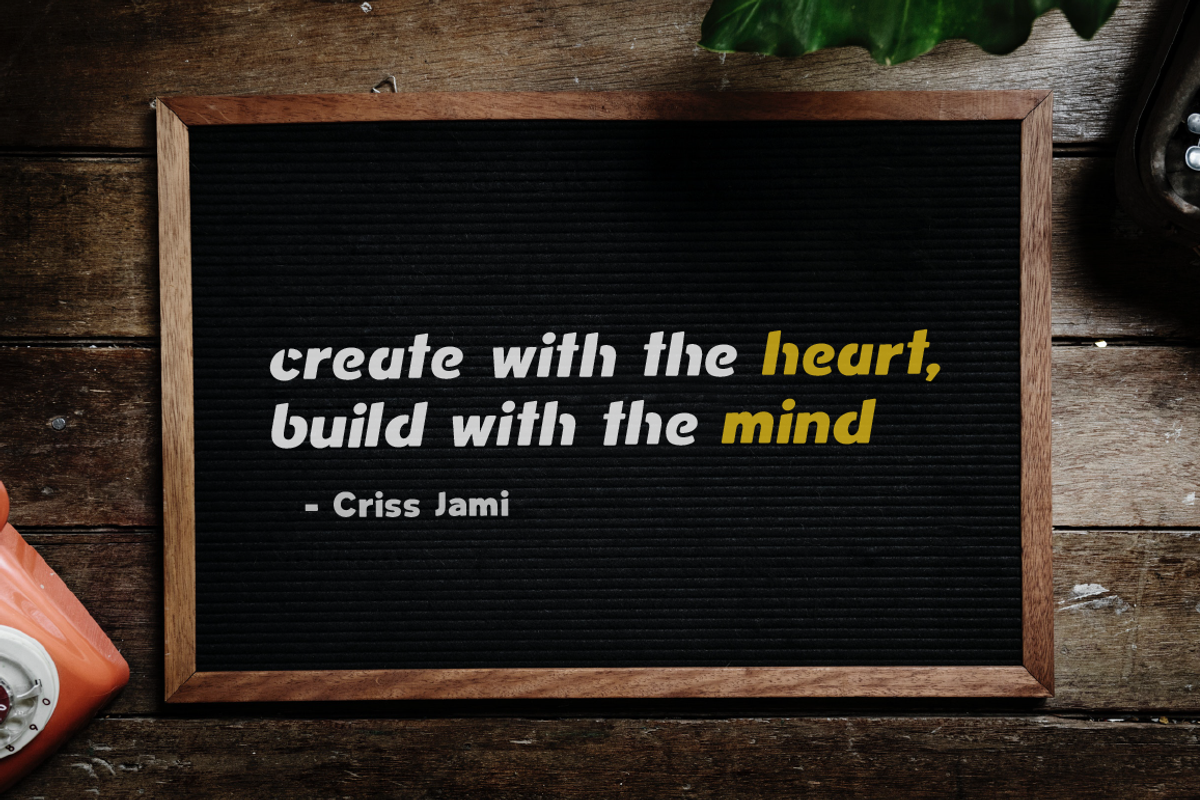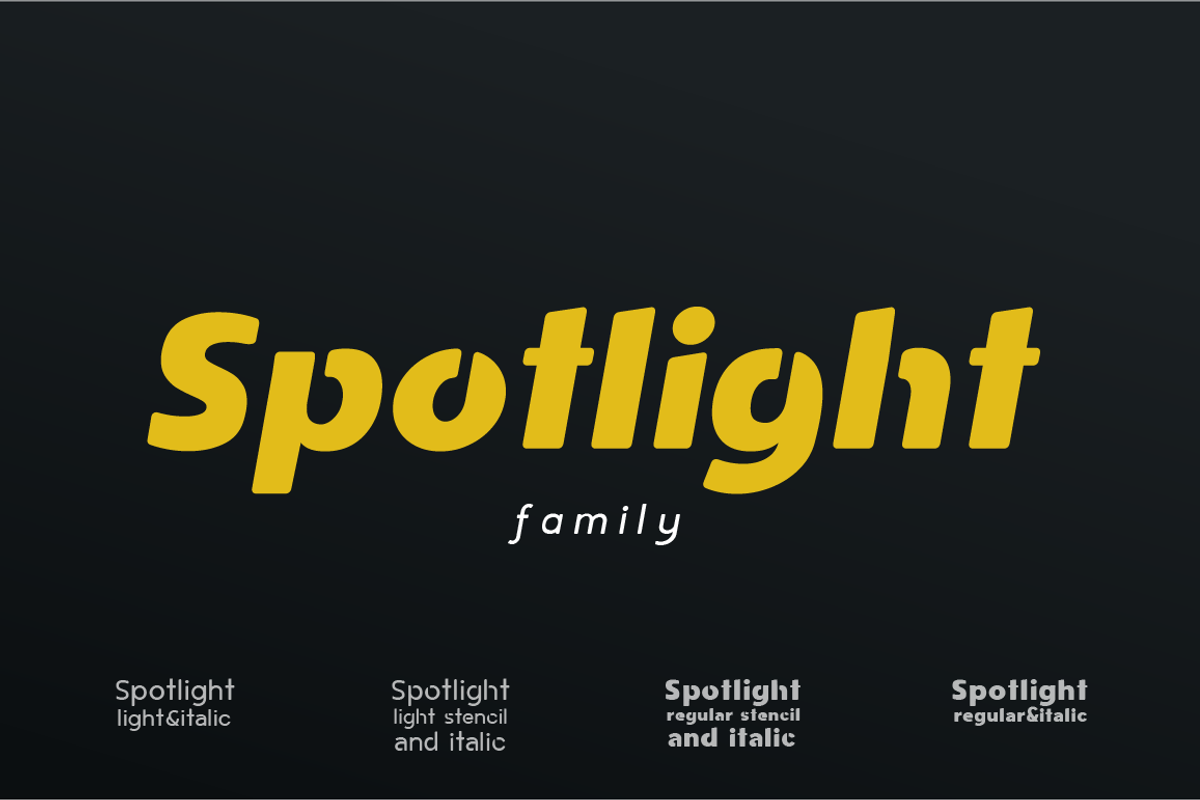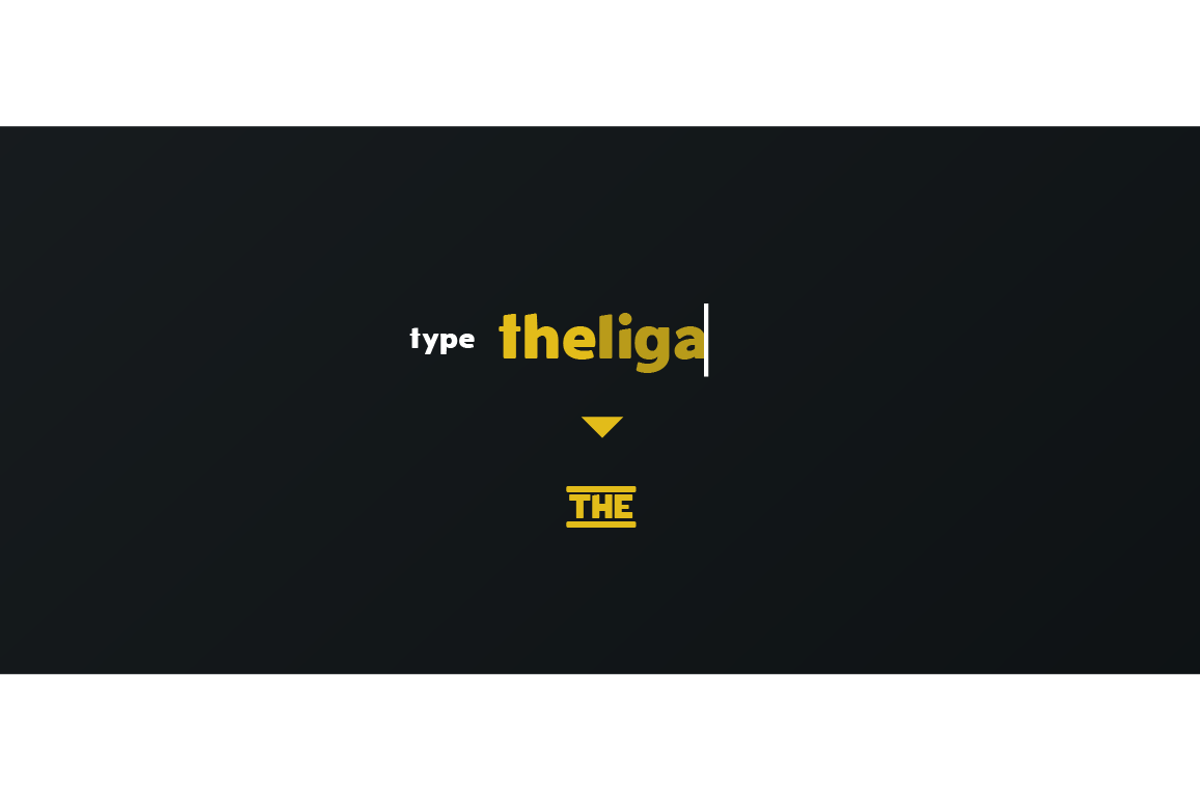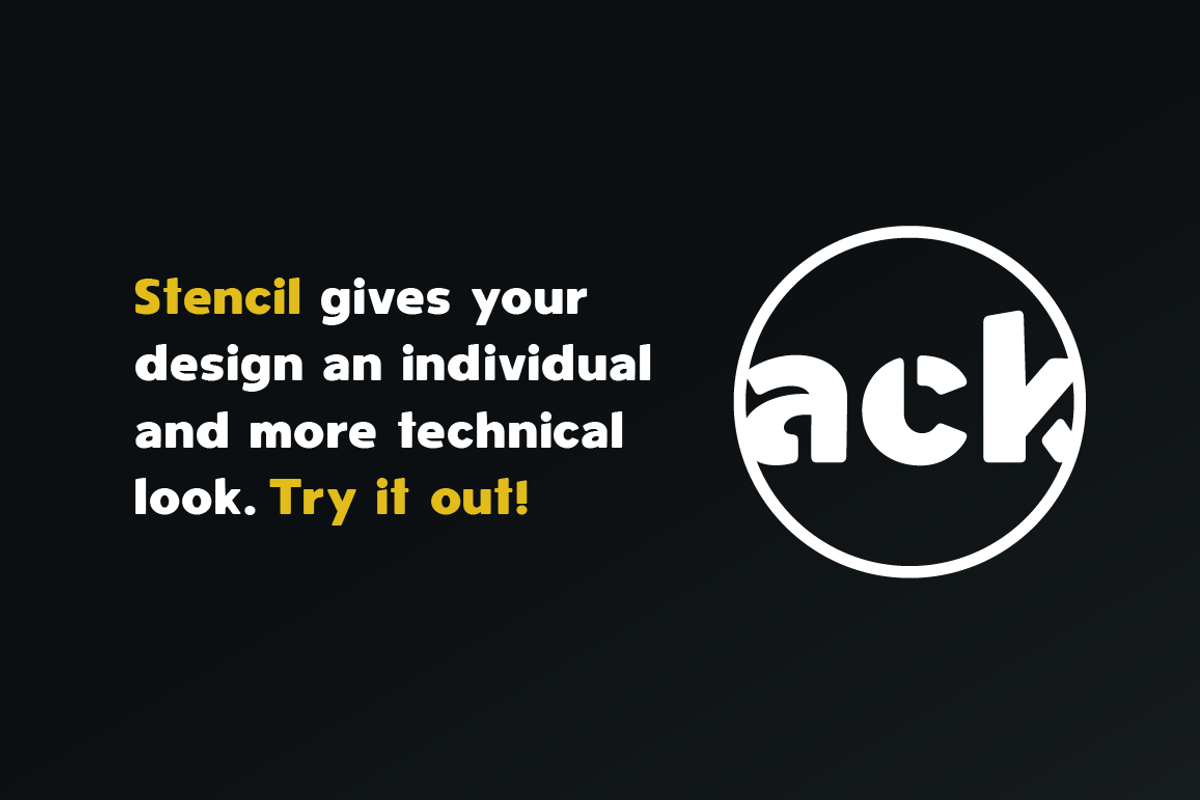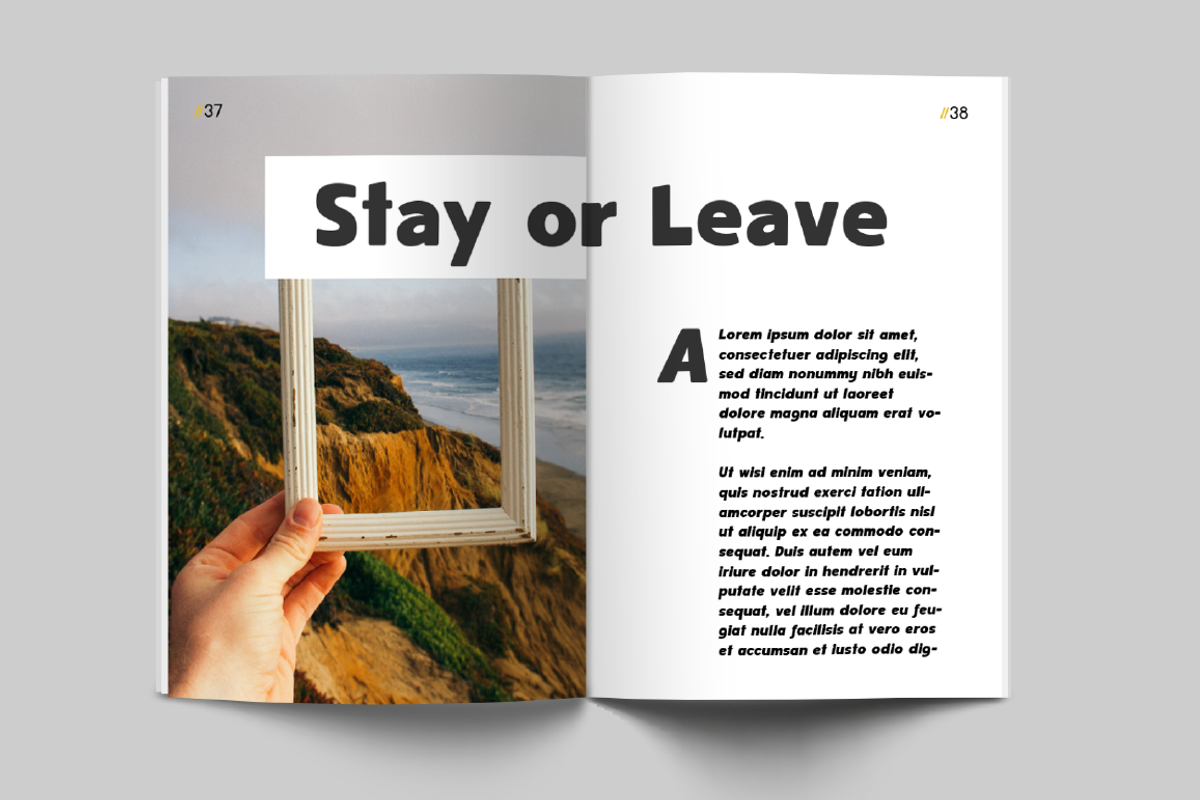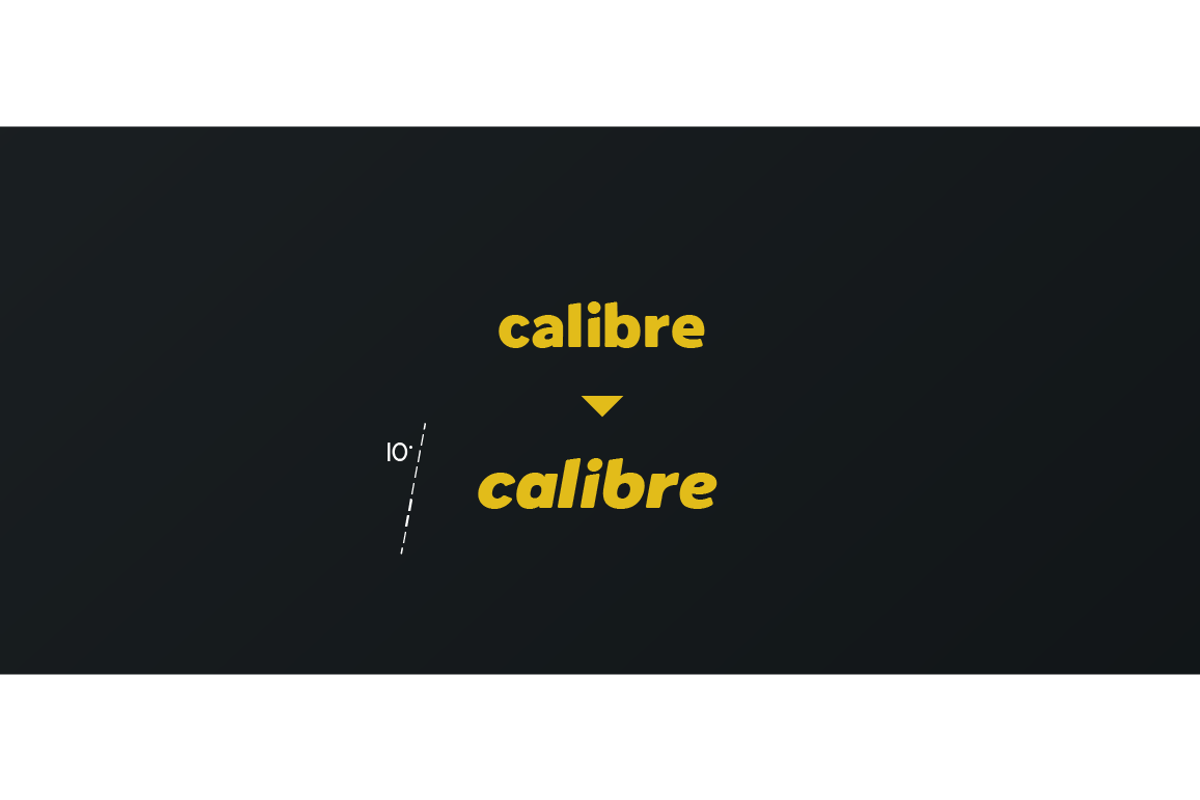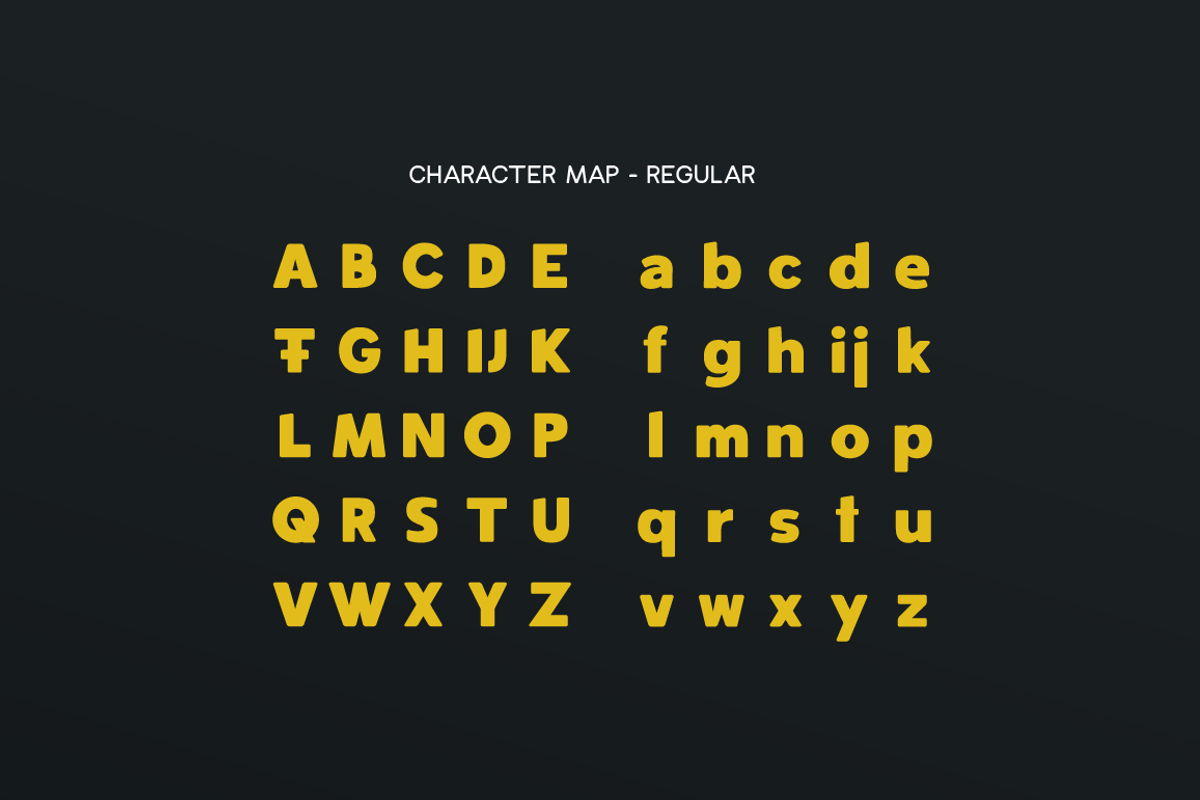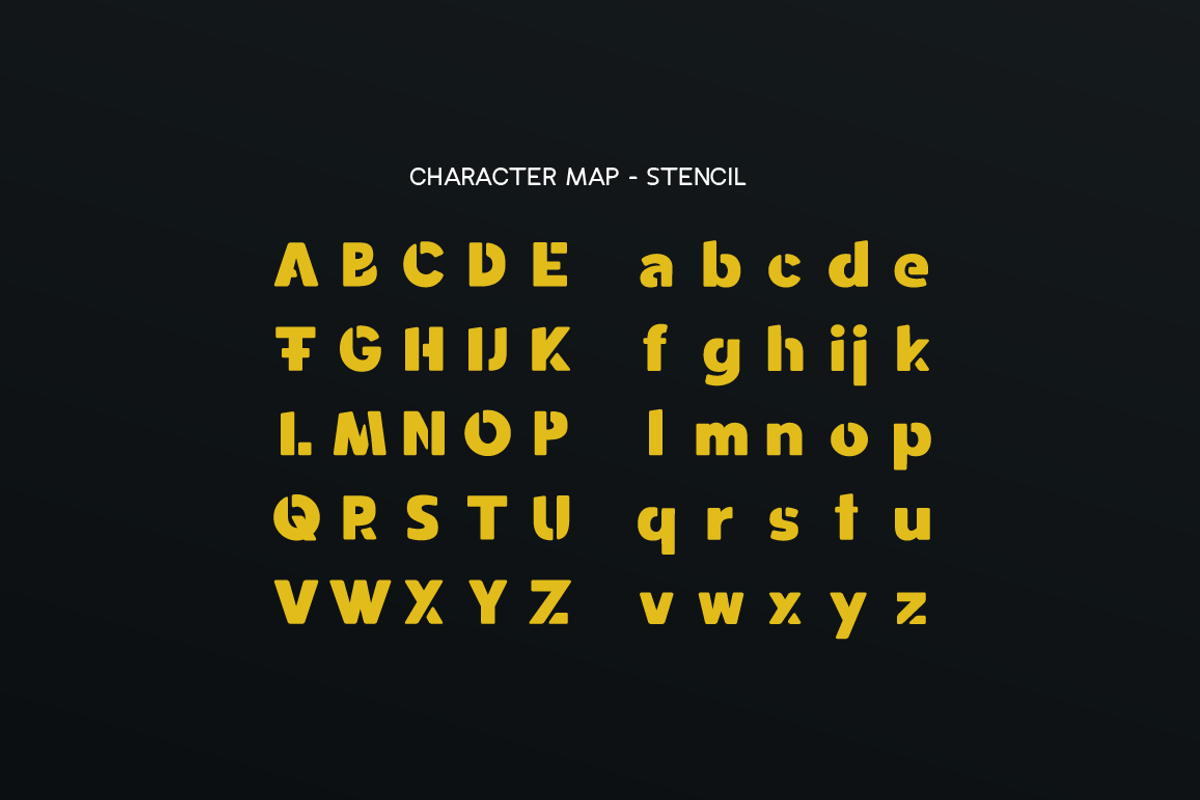
Spotlight I Sans Serif Family
Spotlight is a modern sans serif typeface and perfect for headlines, logos or even continuous text. It has beautifully modulated letters and a balanced stroke width and you can choose between a regular look or true italics. Or go crazy with the stencil style, which will give your design a unique look. Try it for free or buy a commercial license which includes all 500 letters and a bonus style!
Why Spotlight I Sans Serif Family is worth a look
Spotlight I Sans Serif Family by Shaped Fonts fits naturally into Branding, posters, packaging, typography.